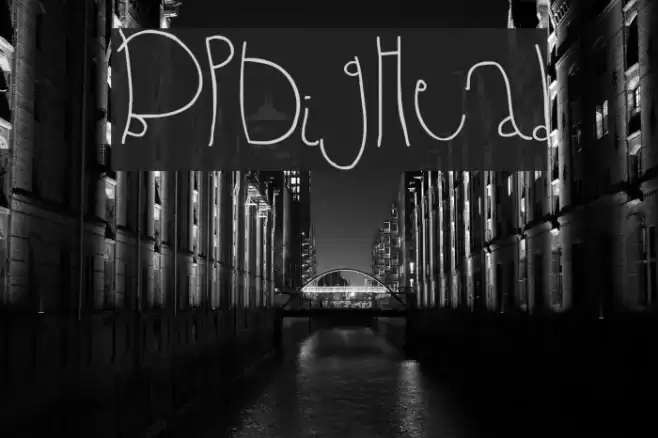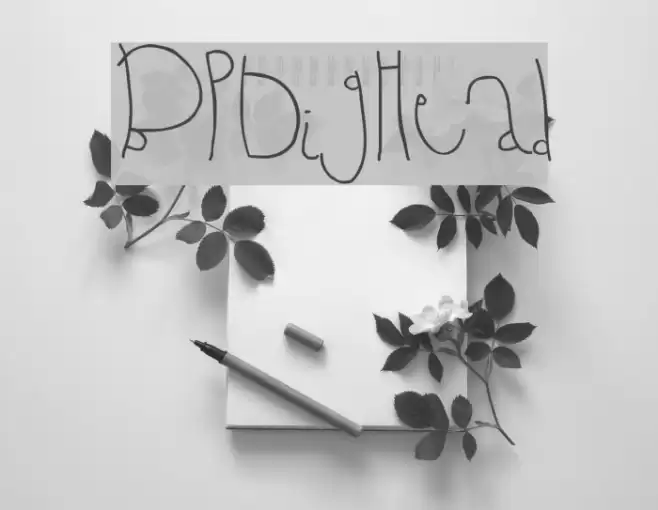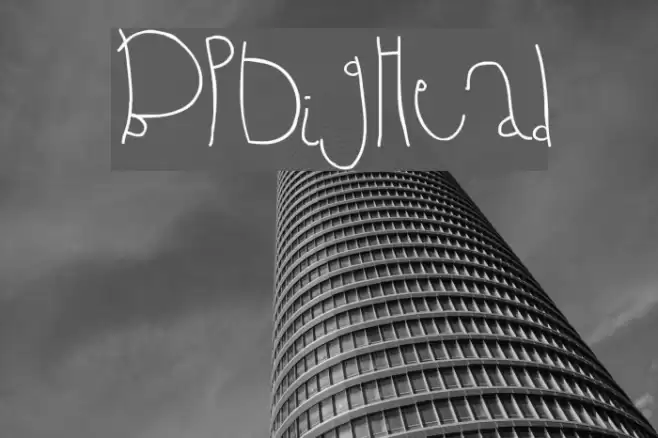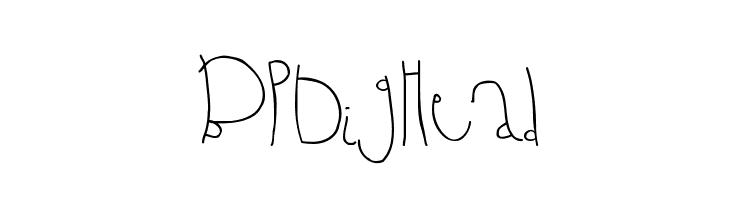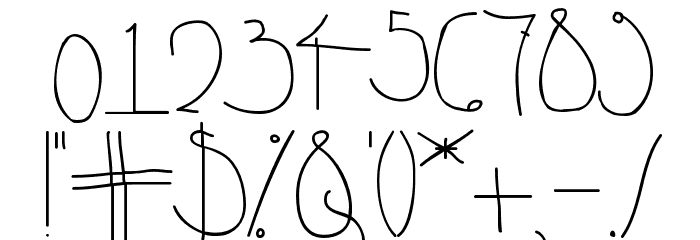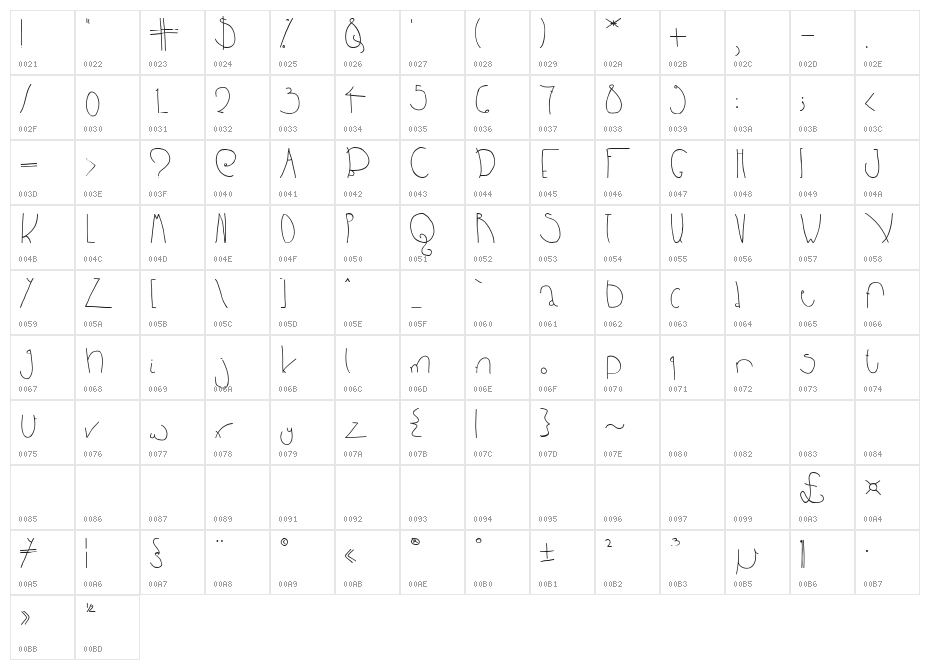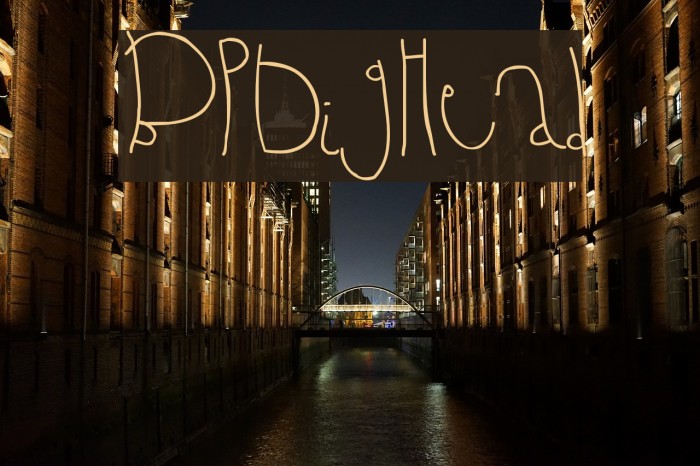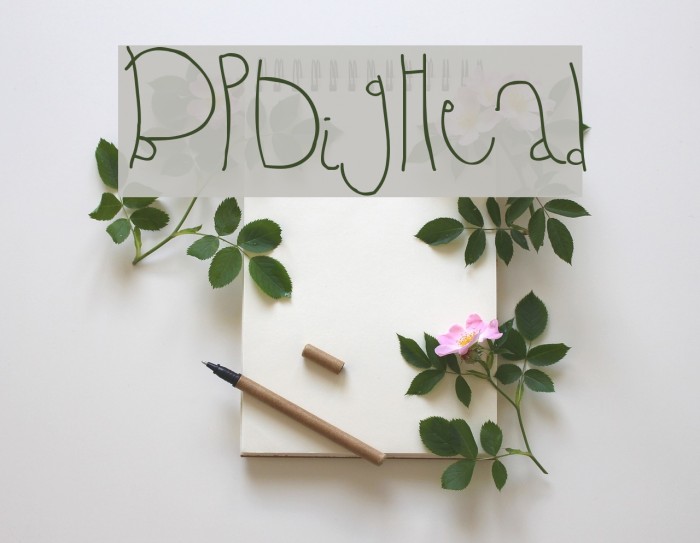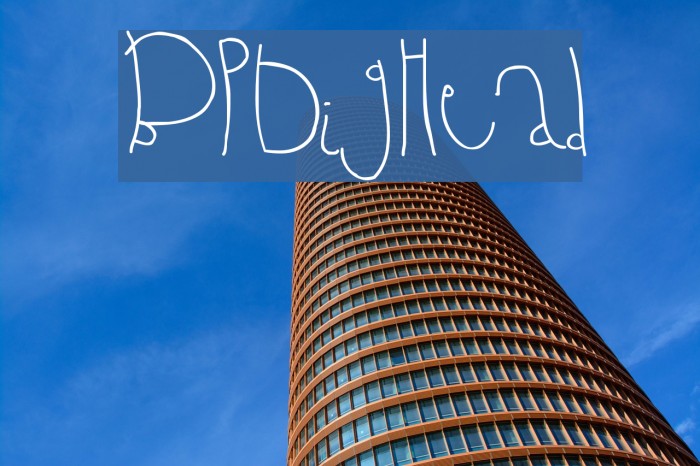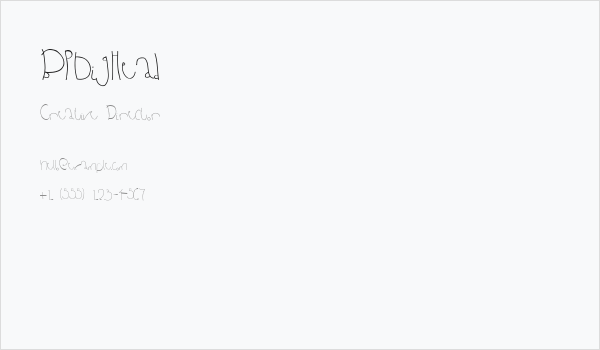
BPbigHead Font
BPbigHead Description
This font features a playful and whimsical design, characterized by its thin, hand-drawn strokes that give it a casual and informal appearance. The letters are slightly irregular, adding a unique charm and personality to the text. The uppercase and lowercase letters maintain a consistent style, with rounded edges and a flowing, organic feel. The numerals and special characters follow the same aesthetic, ensuring a cohesive look across all elements. This font is ideal for projects that require a touch of creativity and individuality, making it perfect for artistic and informal settings.
A playful, hand-drawn font with thin, whimsical strokes from Uncategorized fonts.
- Proposed Projects: Ideal for greeting cards, children's books, creative posters, and informal branding.
- Weight: Light
- Use Case: Headlines, Logos, Creative projects